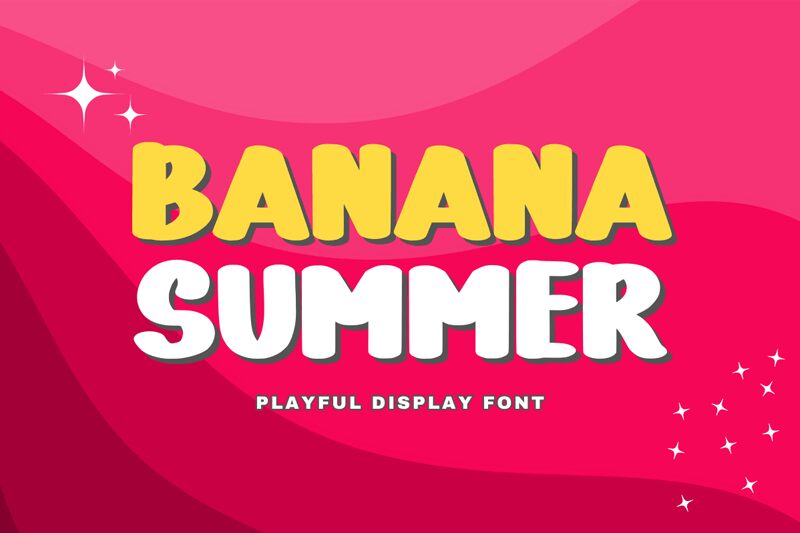
Banana Summer font by Muhammad Afif of Minimalist Eyes is a comic-style, contemporary display type featuring an informal structure. Rounded letters feature smooth lines and immaculate curves. This is a friendly typeface that conveys the ultimate casual, relaxed atmosphere. It steps away from formality aiming for expressiveness and ease and bringing out the child in you.
Because Banana Summer fits perfectly in youthful environments where energy matters most, it will embellish anything from comics to video games, T-shirt designs to packaging goods for kids, or websites and social media posts targeting younger generations. Try it on posters or greeting cards too!